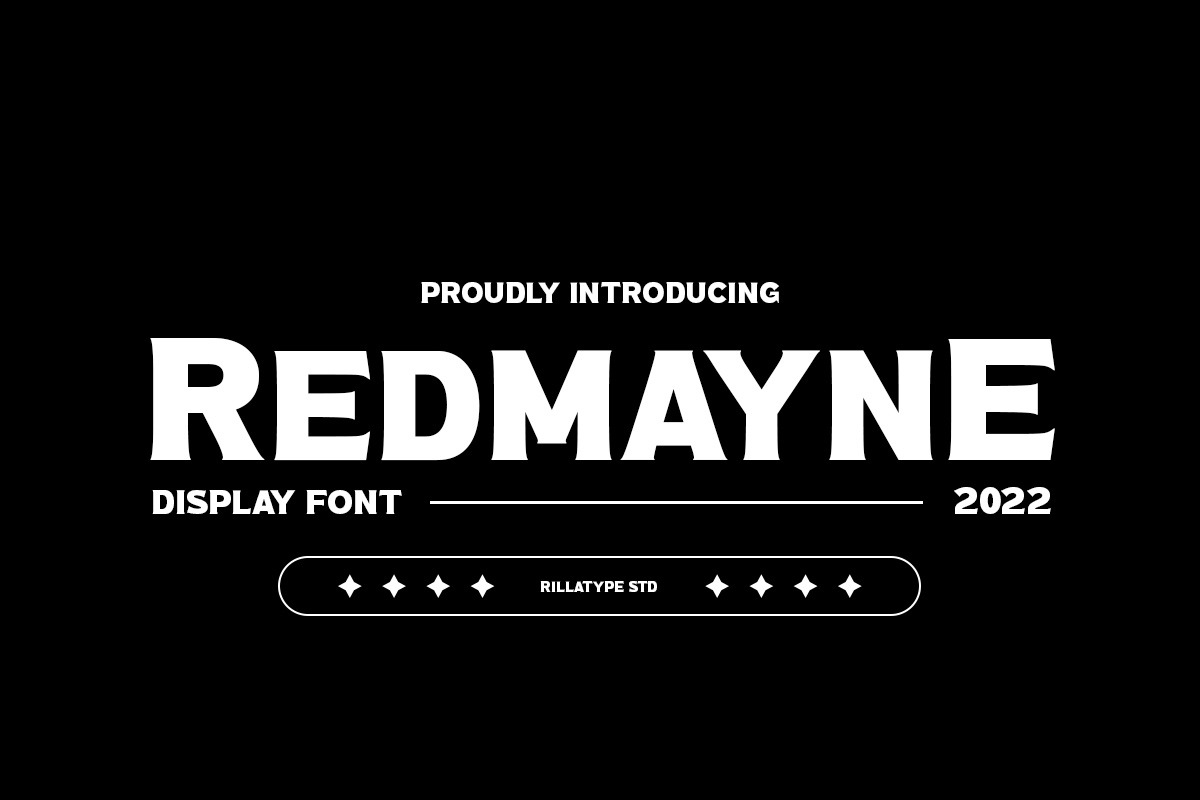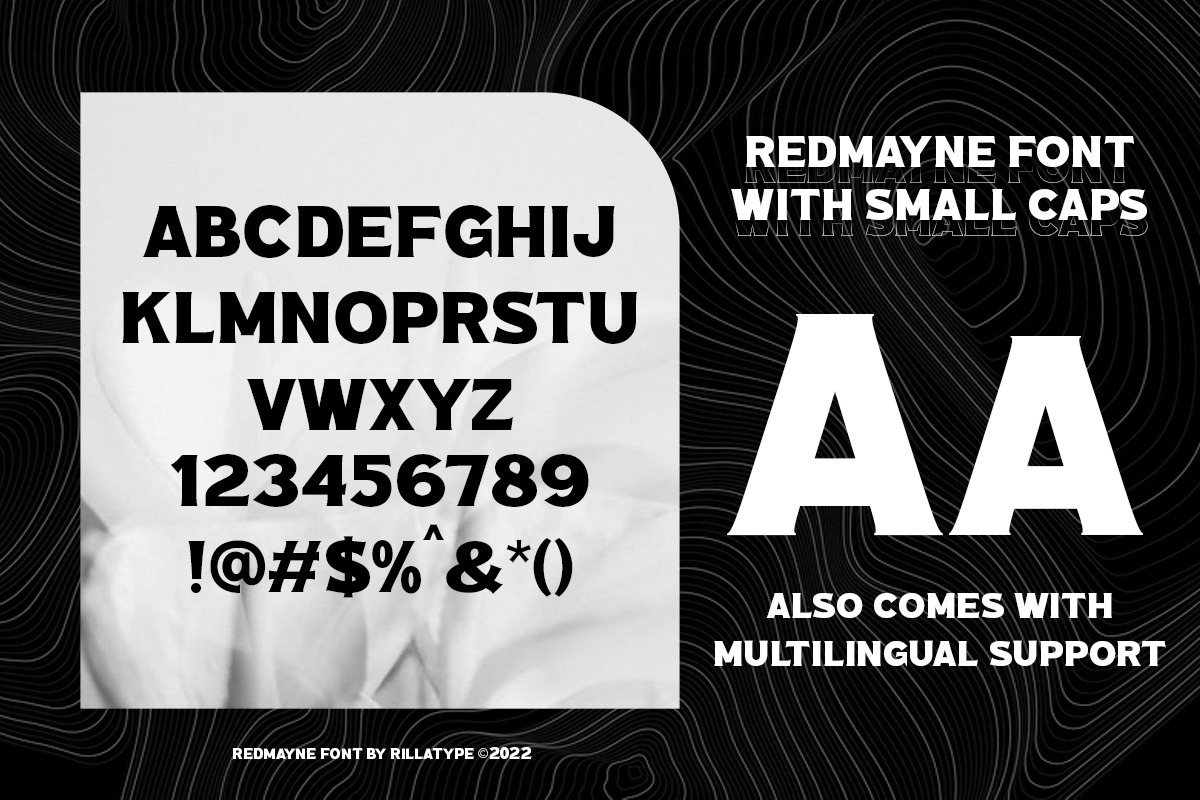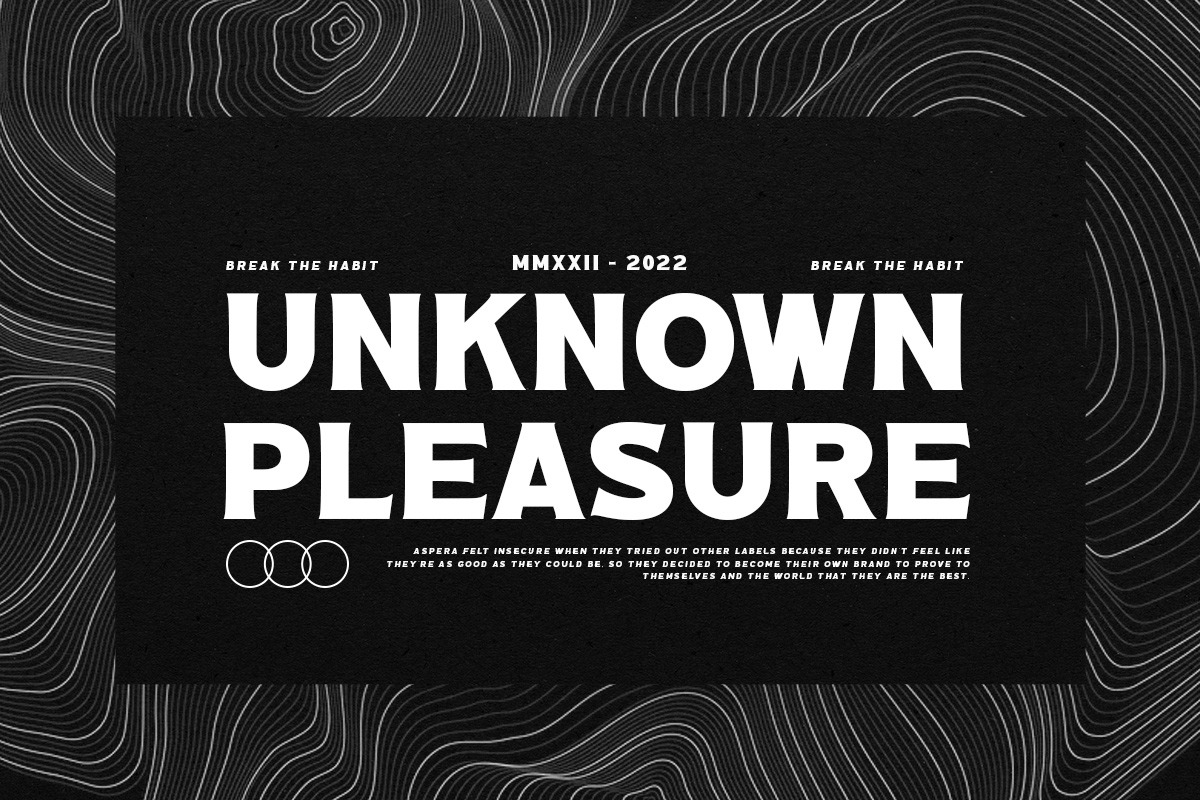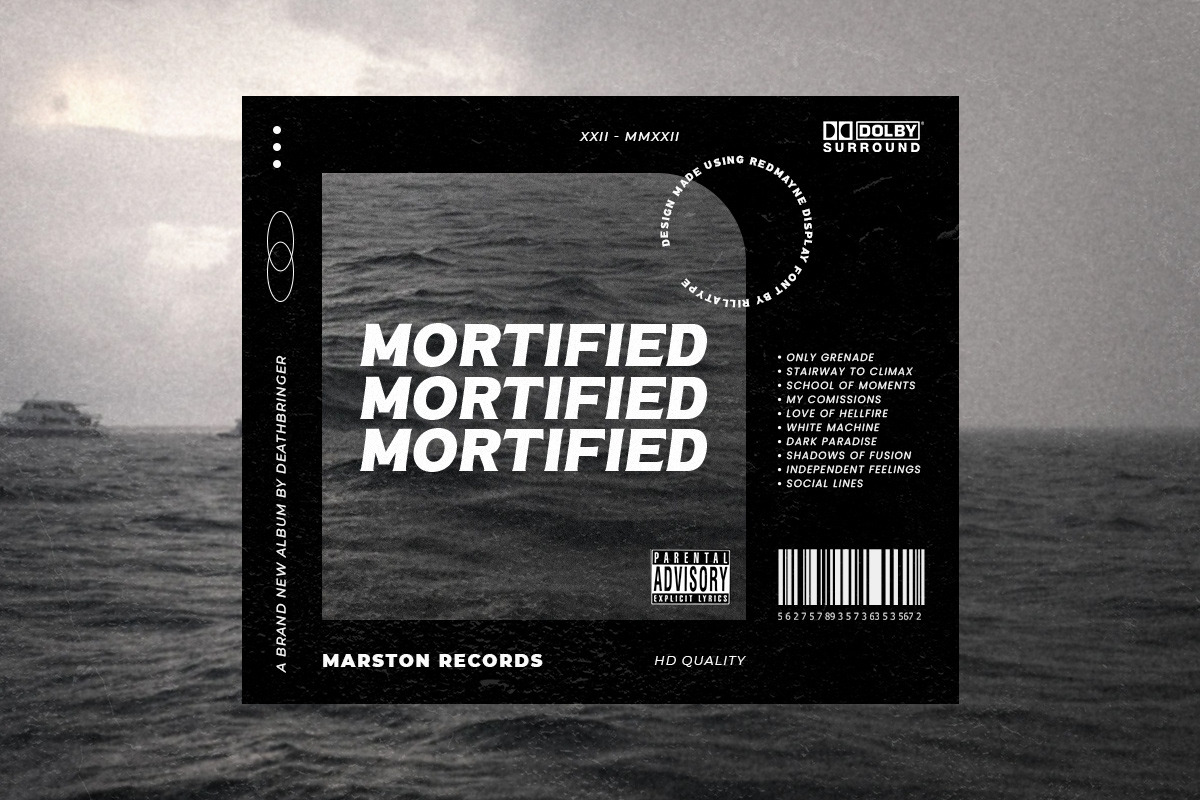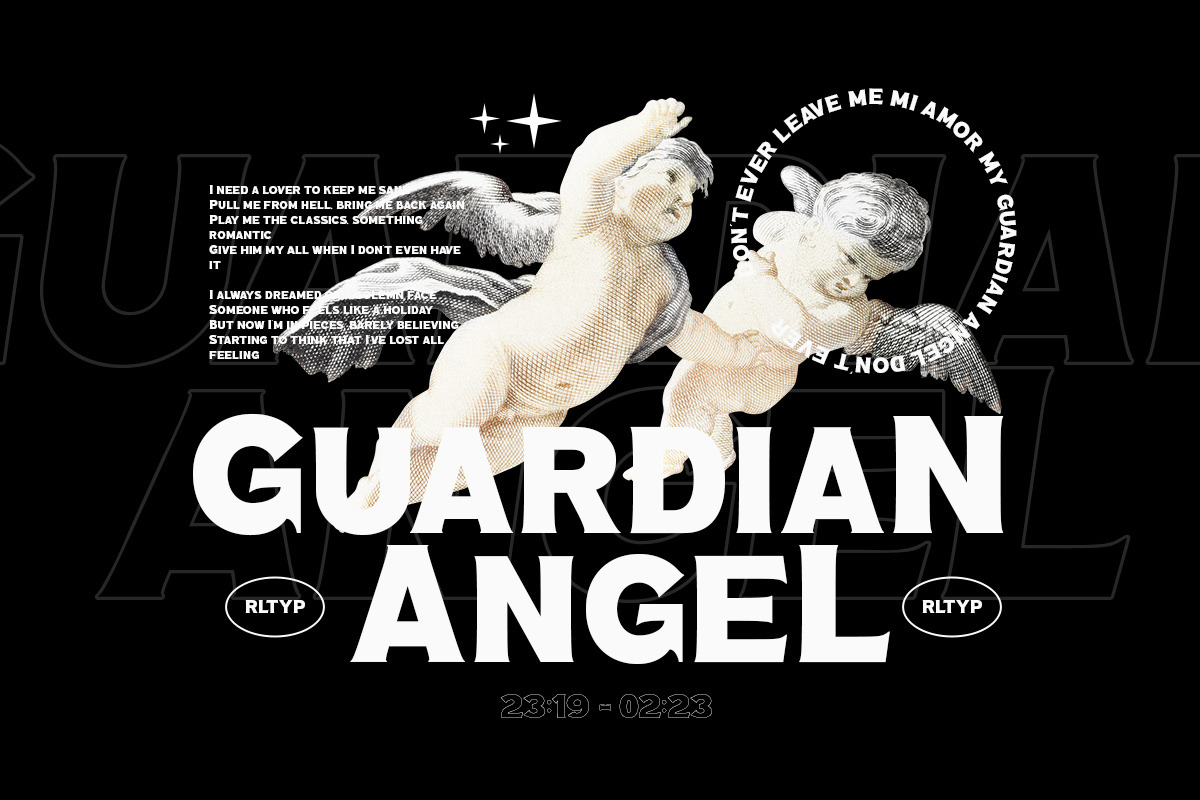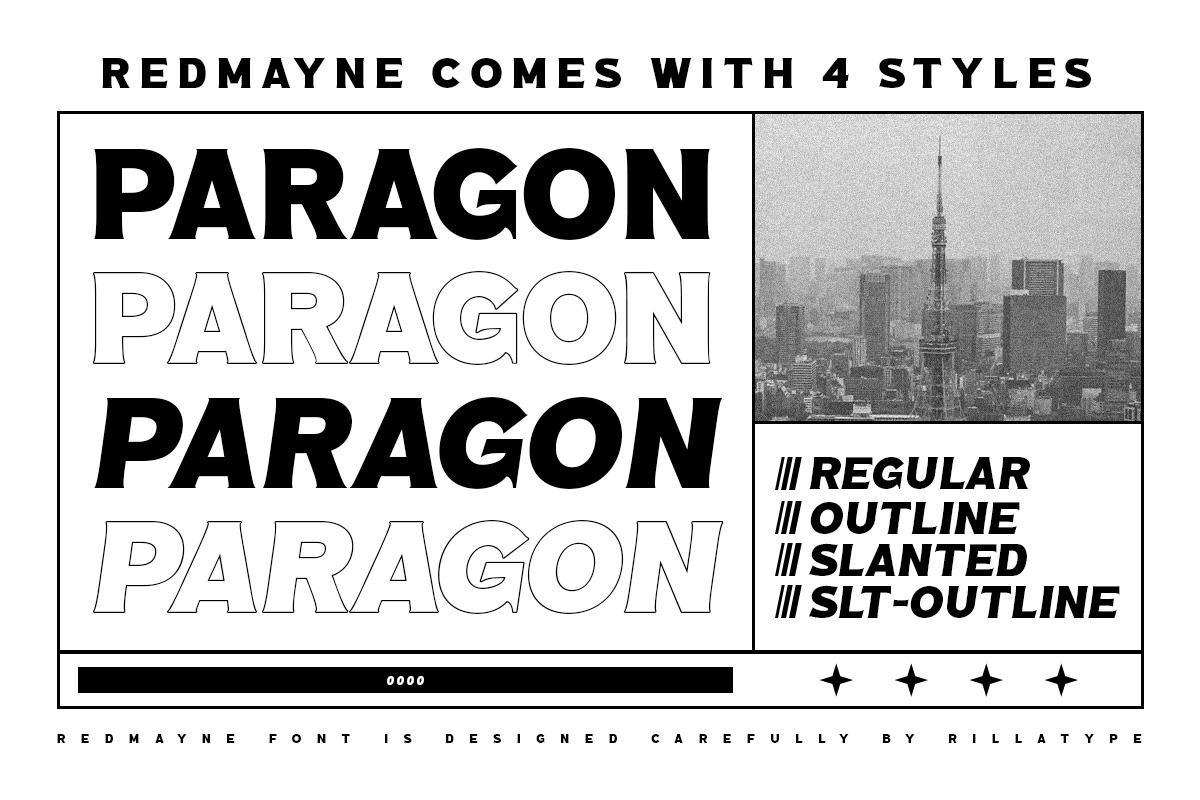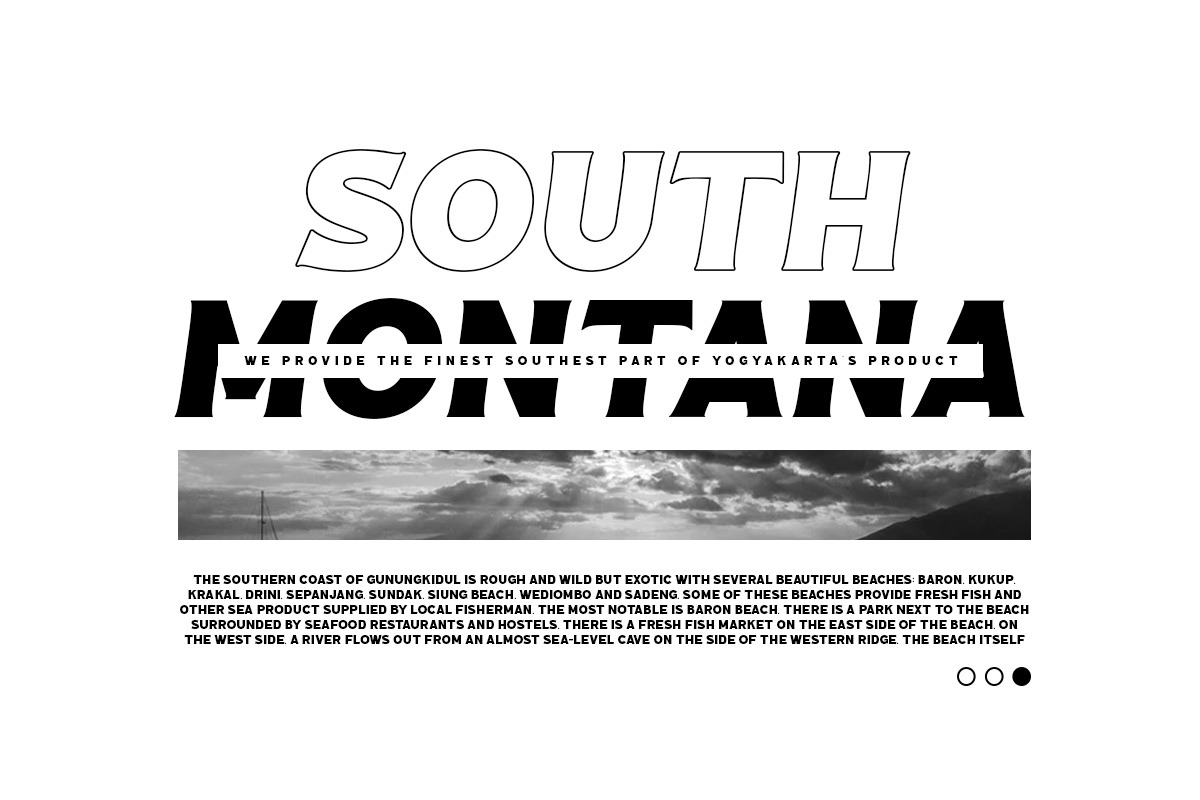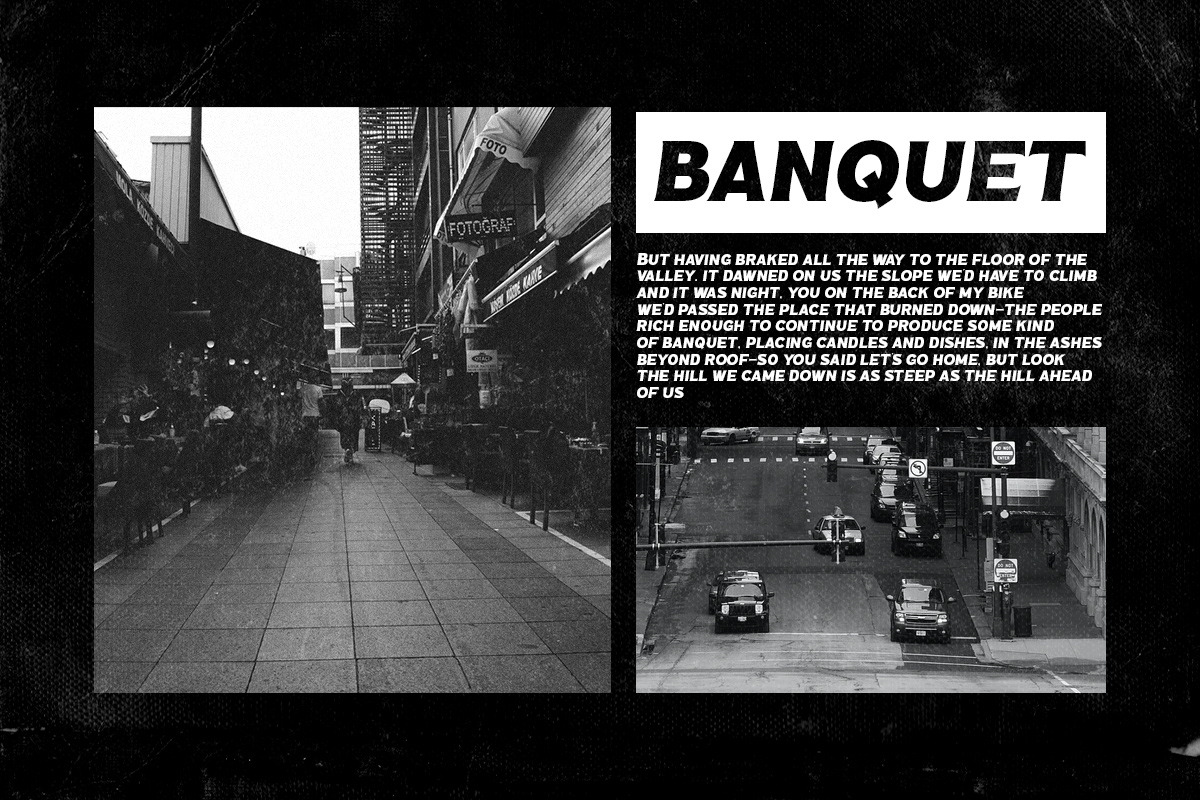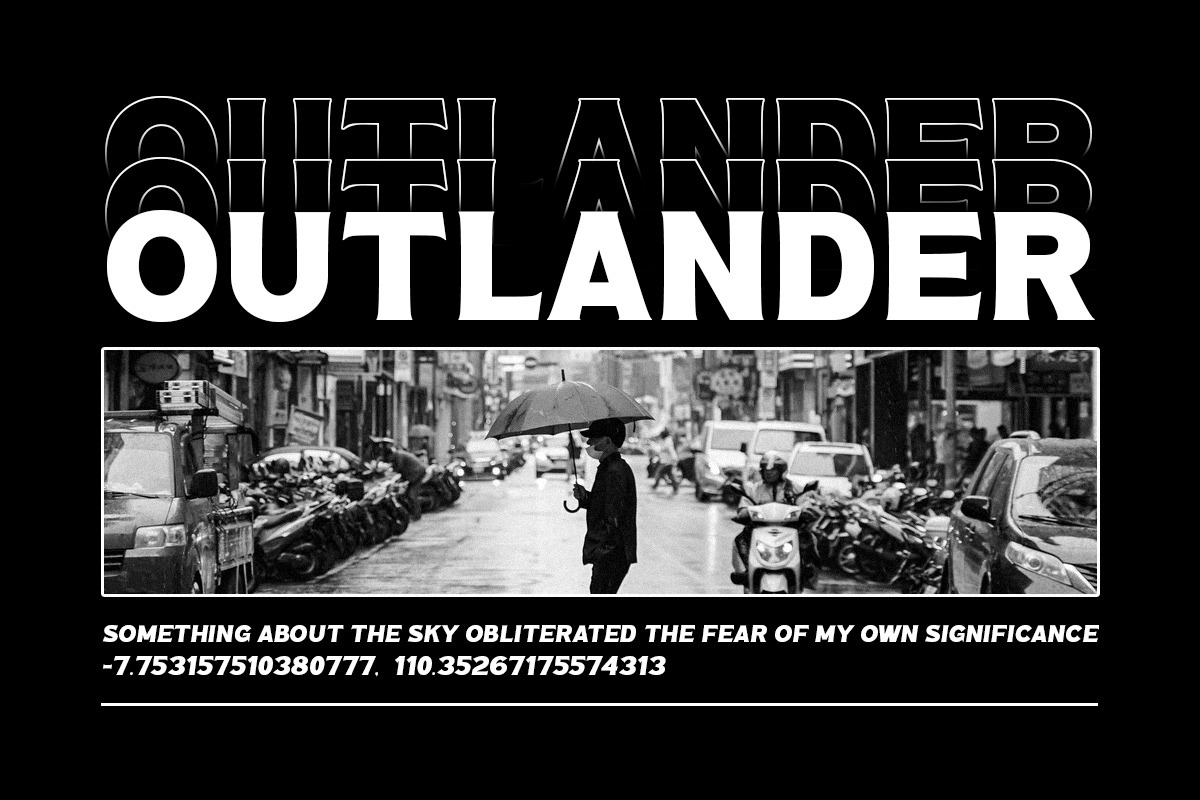
Redmayne - Display Font
Introducing, my latest font Redmayne! Redmayne is a display font with bold and strong feels that will bring big and strong feel to your design and make your design pop eyecatching even more! Redmayne is perfect for branding, packaging, logo design, headline, and many more.